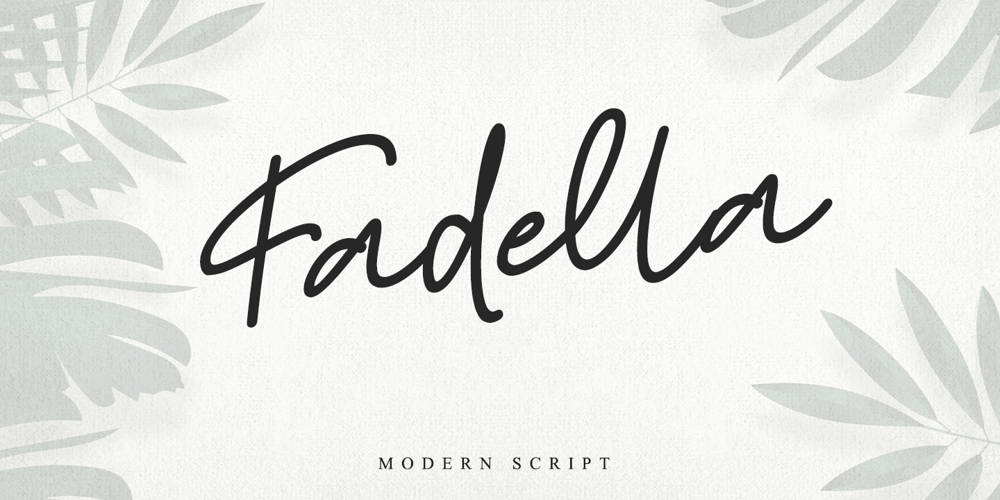
Fadella Font Family was designed by Stefani Tri Rosa Setiati Christiana and published by Stefani Letter. Fadella contains 2 styles and family package options. Fadella is a beautiful monoline script font that will effortlessly add a perfect look to any craft! Your imagination and this font will make a perfect combination. Get inspired by its unique charm and create amazing greeting cards, Weddings, books, logos, stationery, and much more! This font is PUA encoded which means you can access all of the cute glyphs with ease! It also features a wealth of including ligatures.